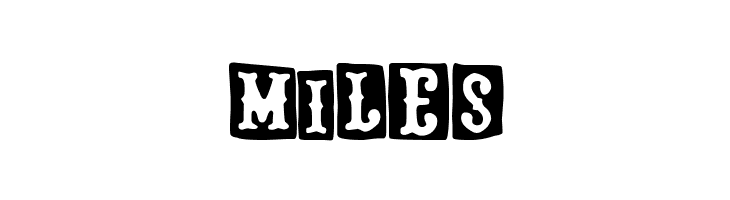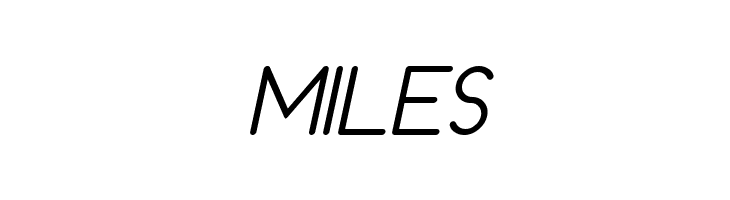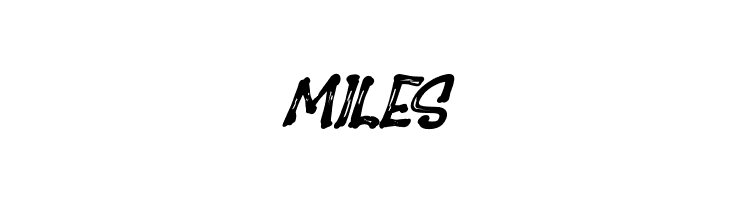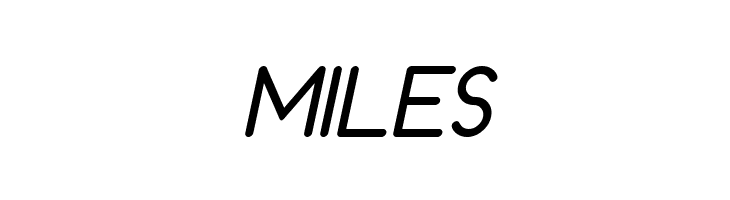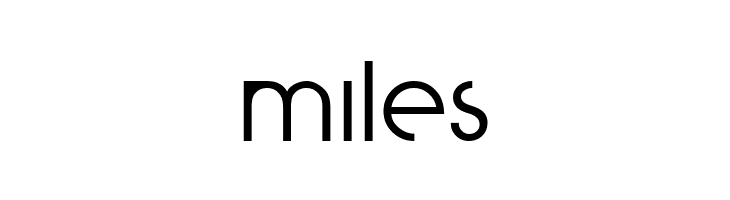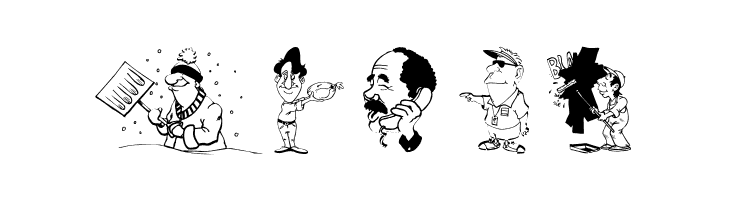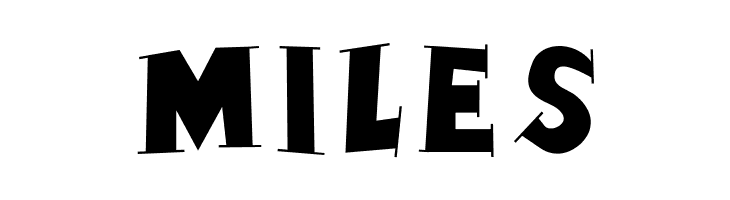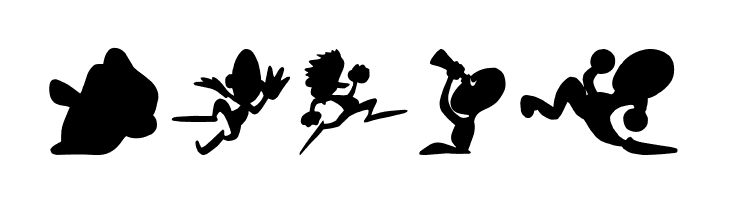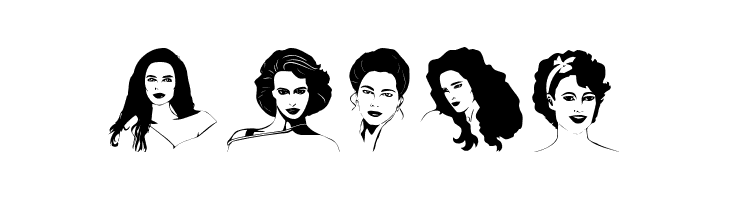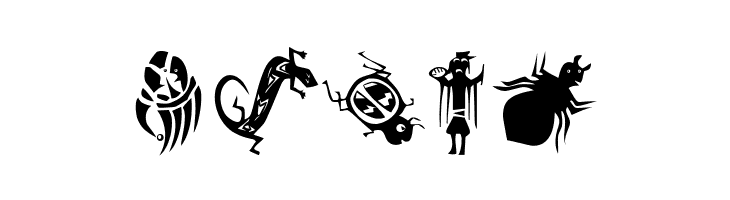
A bold, decorative font with a playful, vintage poster style.
A bold, dynamic brush script font with fluid strokes and expressive style.
A bold, playful serif font with exaggerated and irregular forms.
A playful, sketch-like font with uneven strokes and a hand-drawn feel.
A cartoonish, illustrative display font with lively, hand-drawn characters.
A bold, artistic font with a hand-drawn, whimsical style.
A futuristic, geometric font with bold, rounded letterforms and unique cutouts.
A bold, futuristic font with geometric shapes and unique cutouts.
A futuristic, bold italic font with geometric shapes and smooth curves.
A futuristic, bold, and italic font with geometric and space-age elements.
A futuristic, geometric outline font with circular elements and consistent width.
A futuristic, geometric outline font with italicized characters.
Comic-style, alien-themed decorative font with illustrated glyphs.
A modern sans-serif font with clean lines and geometric shapes.
The image contains decorative shadow figures, not a font.
A bold, decorative font with a shadow effect and hand-drawn aesthetic.
A slab serif font with a handcrafted, slightly irregular style.
An artistic and decorative font featuring mythical and abstract creature designs.
A collection of stylized animal and mythical creature silhouettes with tribal and indigenous art influences.
A bold, abstract font with futuristic and geometric design elements.
Portrait-based decorative font with illustrated human faces.